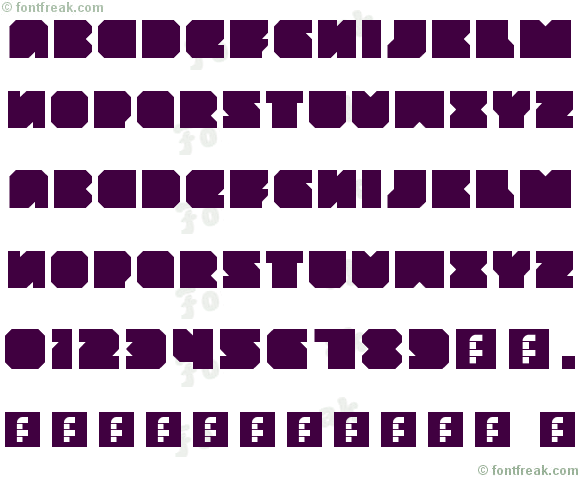
throwback Regular
Throwback Regular, created by Gyom Seguin, is a striking display font that captures the essence of retro design. This font, categorized as a decorative typeface, features bold, chunky letterforms that evoke a sense of nostalgia. The stroke weight is consistent throughout, providing a solid and impactful visual presence. With minimal contrast and wide spacing, Throwback Regular ensures legibility while making a strong stylistic statement, perfect for grabbing attention.
This versatile font shines in various applications, making it ideal for creative projects that require a touch of vintage flair. It works beautifully for movie posters, where its boldness can evoke classic film aesthetics. Additionally, it is an excellent choice for restaurant menus, helping to create an inviting atmosphere reminiscent of diners from the past. Wedding invitations can also benefit from this font's unique character, adding a playful yet elegant touch to the special day. Content creators will find Throwback Regular suitable for social media graphics, where its eye-catching style can help to engage audiences effectively.
The target audience for Throwback Regular includes graphic designers seeking to incorporate a retro vibe into their projects, small business owners looking to promote their establishments with distinctive branding, and content creators who want to enhance their visual storytelling.
What sets Throwback Regular apart is its ability to blend fun and functionality. This font stands out not only for its nostalgic appeal but also for its adaptability across various mediums. With the throwback Regular font free download available, it invites designers and creatives alike to explore its potential and infuse their work with a unique, memorable style. Whether it's for a project steeped in history or a modern take on classic design, Throwback Regular is sure to leave a lasting impression.